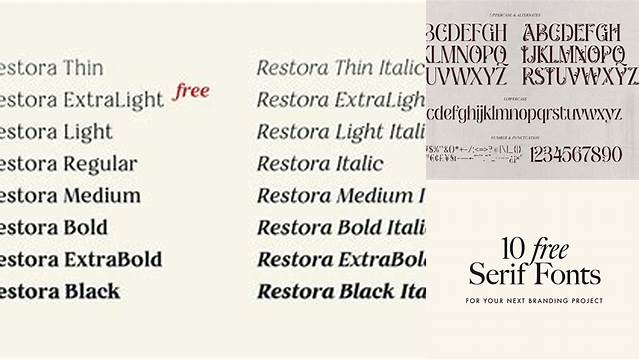
Restora Font: Free Old Style Serif For Timeless Designs
Are you looking for restora free old style serif fonts to add a touch of classic elegance to your designs? Look no further! In this article, we will dive into the world of Restora, a beautiful serif font family that evokes the charm of traditional typography while offering a contemporary feel. We'll explore its history, characteristics, and various applications, helping you understand why Restora is an excellent choice for your next project.
Unveiling the Beauty of Old Style Serif Fonts
Before we delve into the specifics of Restora, let's take a moment to appreciate the allure of old-style serif fonts in general. These fonts, like Restora, are characterized by their classic and elegant letterforms, often featuring delicate serifs, a gentle contrast between thick and thin strokes, and a graceful overall appearance. Old-style serifs have a rich history, tracing their roots back to the early days of printing. Fonts like Restora bring this heritage to the modern era, providing designers with a timeless and sophisticated option for their work. When you choose an old-style serif, you're not just selecting a typeface; you're embracing a tradition of craftsmanship and artistry.
The beauty of old-style serif fonts, such as Restora, lies in their ability to convey a sense of history, authority, and refinement. These fonts are often associated with established institutions, literary works, and high-end brands. Their elegant letterforms and delicate serifs create a visual experience that is both pleasing and trustworthy. The gentle contrast between thick and thin strokes adds a touch of sophistication, while the overall design evokes a sense of timelessness. Using old-style serifs can instantly elevate the perceived quality of your project, making it appear more polished and professional. Whether you're designing a book cover, a website, or a marketing campaign, these fonts can help you communicate a message of heritage and class.
The specific characteristics of old-style serif fonts, exemplified by Restora, contribute significantly to their unique appeal. One key feature is the presence of serifs – the small strokes extending from the ends of the main strokes of a letter. In old-style serifs, these serifs are typically bracketed, meaning they have a curved connection to the main stroke, adding to the font's fluidity and grace. The contrast between thick and thin strokes is another defining trait, although it's usually more subtle than in modern serif fonts. This gentle contrast creates visual interest without sacrificing readability. The overall letterforms in old-style serifs tend to be organic and humanist, reflecting the influence of handwriting. This gives the font a warm and approachable feel, making it ideal for projects that aim to connect with the audience on a personal level. Restora embodies all these characteristics, making it a prime example of the enduring beauty and functionality of old-style serif fonts.
Restora: A Modern Take on a Classic Style
Restora is a captivating font family that perfectly blends the classic charm of old-style serifs with a contemporary sensibility. Its design pays homage to the traditional letterforms of the past while incorporating modern refinements that make it suitable for a wide range of applications. Restora's elegant serifs, balanced proportions, and smooth curves create a visual harmony that is both pleasing to the eye and highly readable. Whether you're working on a print project or a digital design, Restora can bring a touch of sophistication and timelessness to your work. The font's versatility and aesthetic appeal make it a valuable addition to any designer's toolkit.
The unique features of Restora set it apart from other old-style serif fonts. While it retains the classic characteristics of this genre, Restora incorporates subtle modern touches that enhance its overall appeal. For instance, the letterforms are carefully crafted to ensure optimal legibility in both print and digital environments. The serifs are refined and elegant, adding a touch of sophistication without becoming overly ornate. The proportions of the letters are meticulously balanced, creating a sense of visual harmony. Furthermore, Restora often comes in a variety of weights and styles, offering designers a wide range of options to choose from. This versatility allows Restora to be used effectively in various design contexts, from headlines and body text to logos and branding materials. By seamlessly blending classic and contemporary elements, Restora offers a fresh and distinctive take on the old-style serif tradition.
When considering the advantages of using Restora, several key benefits stand out. First and foremost, Restora's timeless elegance makes it an excellent choice for projects that require a touch of sophistication and class. The font's classic letterforms and delicate serifs convey a sense of heritage and authority, making it suitable for high-end brands, literary works, and formal invitations. Secondly, Restora's excellent readability ensures that your message is communicated effectively. The font's balanced proportions and smooth curves make it easy to read in both print and digital formats. Thirdly, Restora's versatility allows it to be used in a wide range of design applications. Whether you're designing a website, a book cover, or a marketing campaign, Restora can adapt to your needs. Finally, Restora's availability as a free font makes it an accessible option for designers of all levels. This means you can enjoy the benefits of a high-quality serif font without having to break the bank.
Where to Use Restora: Applications and Best Practices
Restora's versatility makes it a fantastic choice for a multitude of projects. Its classic elegance lends itself particularly well to print applications, such as books, magazines, and brochures. Imagine a beautifully typeset novel with Restora gracing its pages – the font's readability and sophisticated charm would create an immersive reading experience. Similarly, in magazine layouts, Restora can add a touch of refinement to headlines and body text, enhancing the overall visual appeal. Brochures for luxury brands or institutions can also benefit from Restora's timeless aesthetic, conveying a sense of quality and trustworthiness.
In the digital realm, Restora shines as a web font, bringing its classic elegance to websites and online publications. The font's clear and legible letterforms make it an excellent choice for body text, ensuring a comfortable reading experience for users. Restora can also be used effectively in headlines and subheadings, adding a touch of sophistication to the overall design. When using Restora on the web, it's important to consider factors such as font size and line height to optimize readability across different devices and screen sizes. Additionally, pairing Restora with a complementary sans-serif font can create a balanced and visually appealing typographic hierarchy.
Beyond print and web, Restora can also be used effectively in branding and logo design. Its classic and elegant letterforms make it a suitable choice for brands that want to convey a sense of heritage, quality, and sophistication. Restora can be used to create a logo that is both timeless and memorable, helping a brand establish a strong visual identity. When using Restora in branding, it's important to consider the font's weight and style to ensure it aligns with the brand's overall personality. For example, a lighter weight might be appropriate for a delicate and refined brand, while a bolder weight could be used for a more authoritative brand.